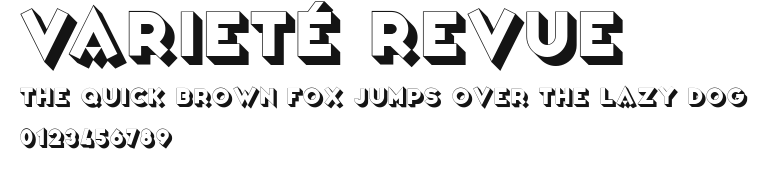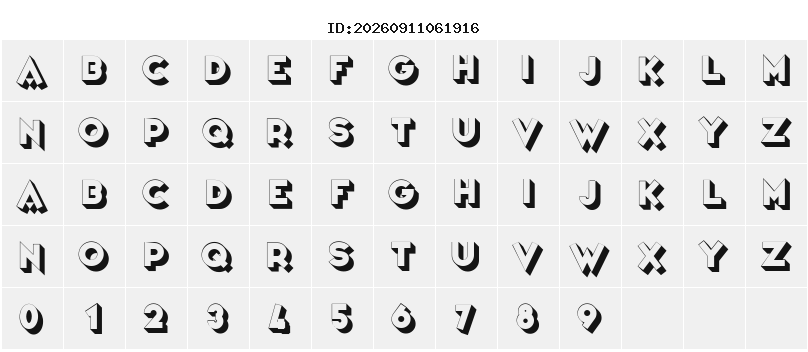
• Font Name: Varieté Revue
• Designer: Peter Wiegel
Varieté Revue.ttf is a modern, elegant sans-serif font designed for ultimate readability and visual harmony. Perfect for branding, headlines, web design, and print materials.